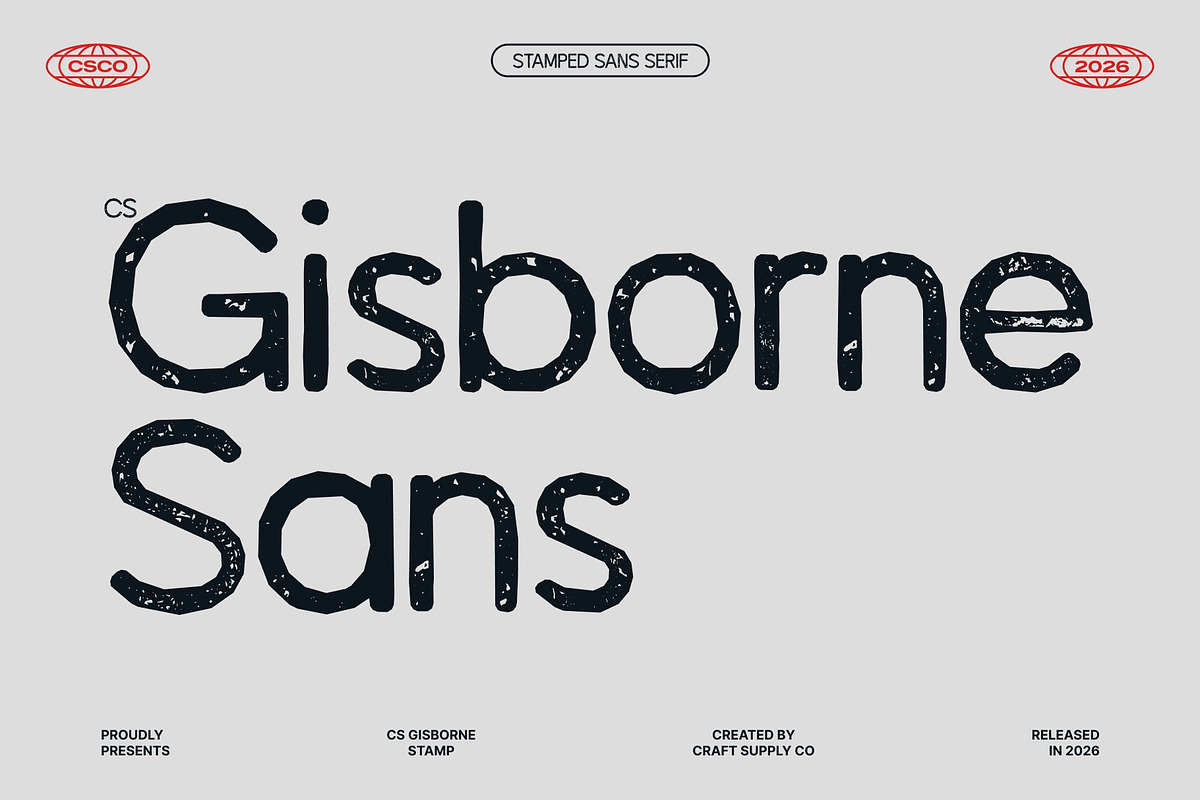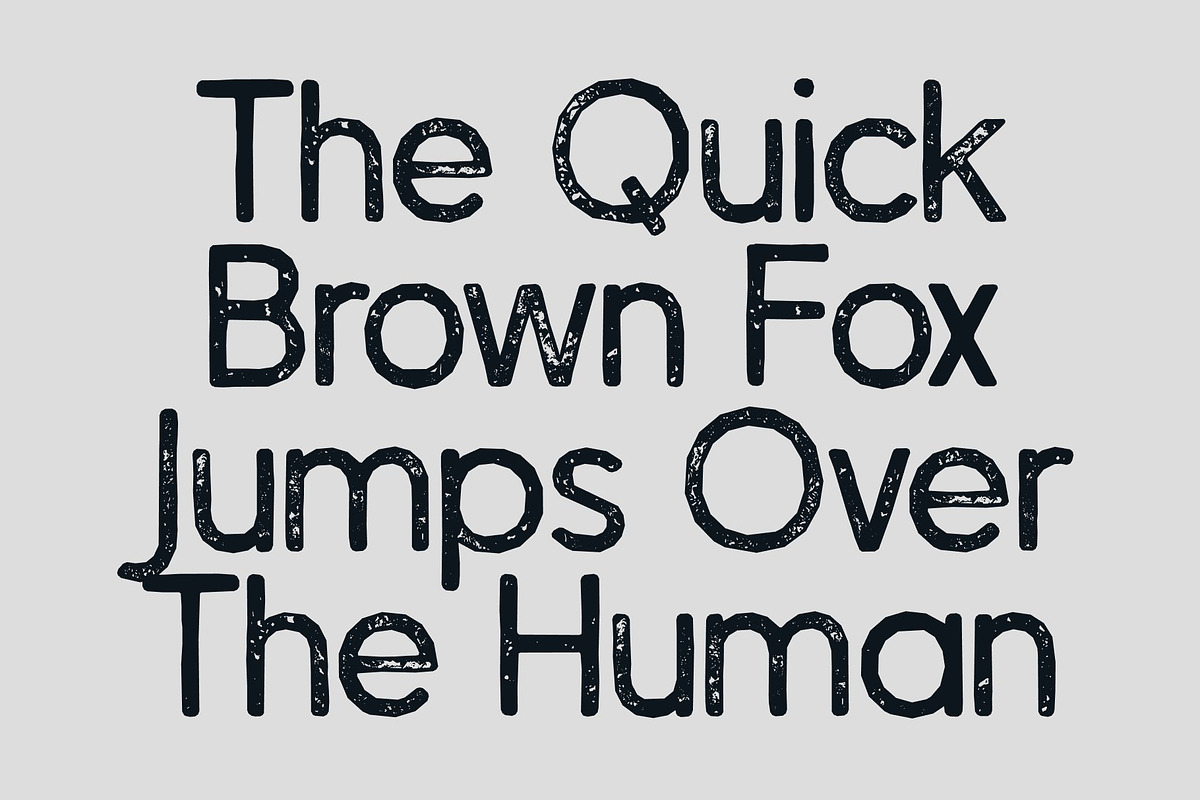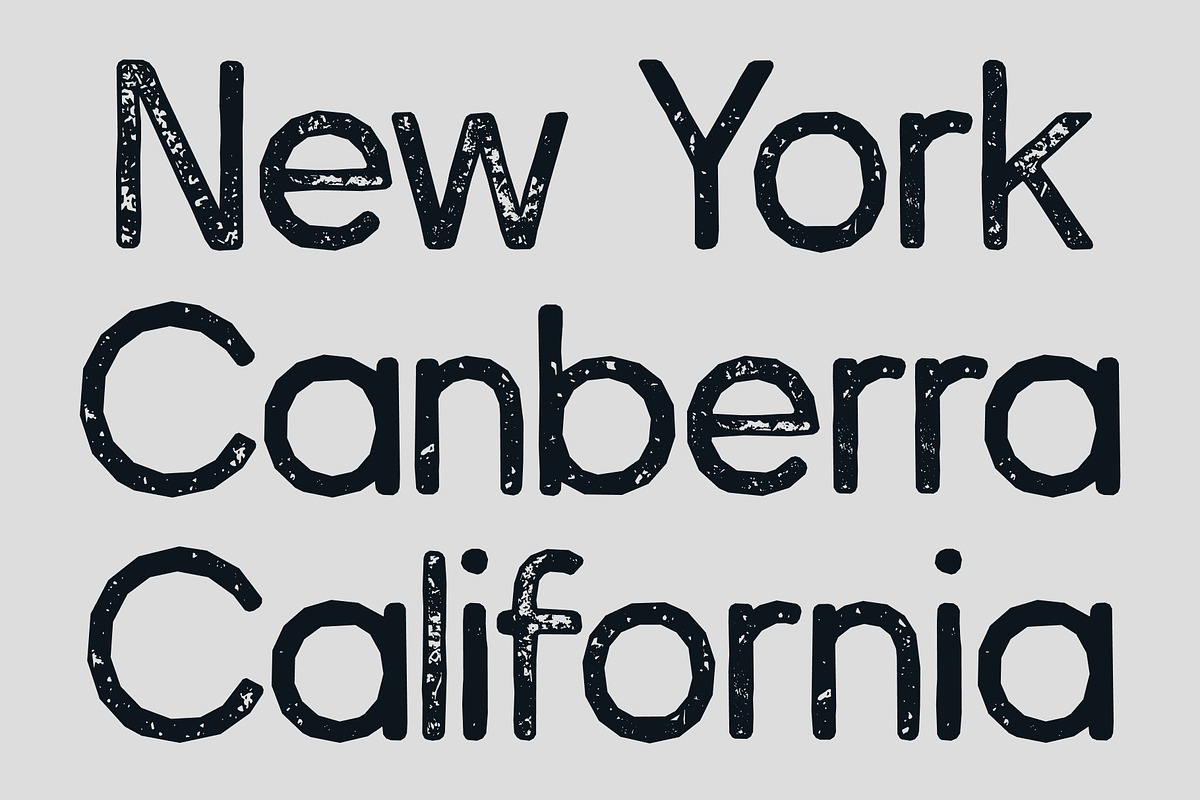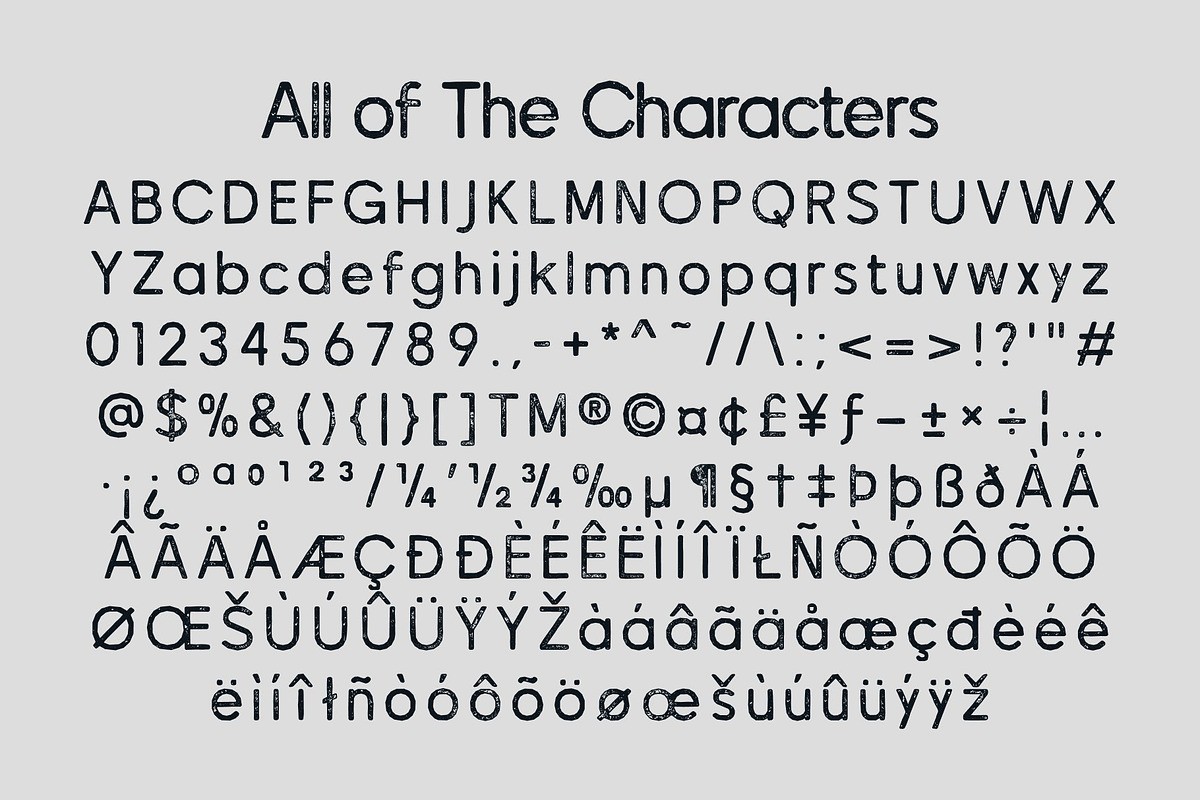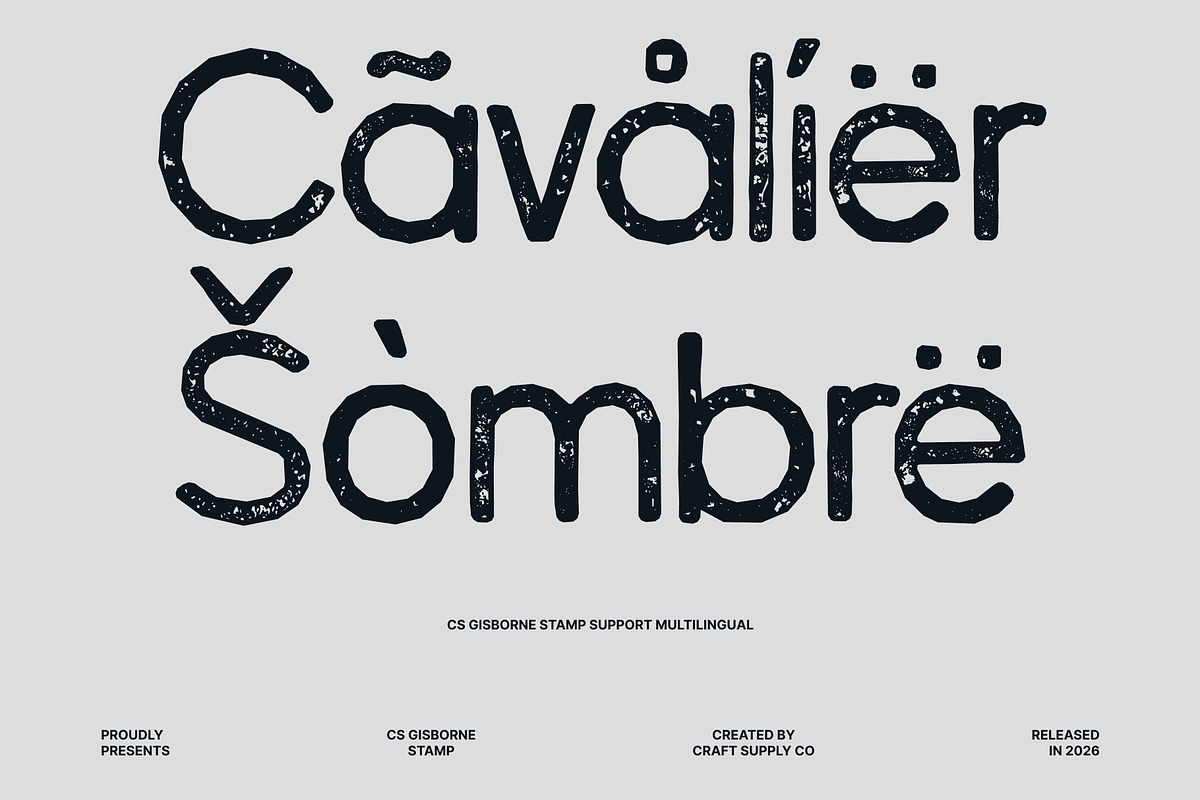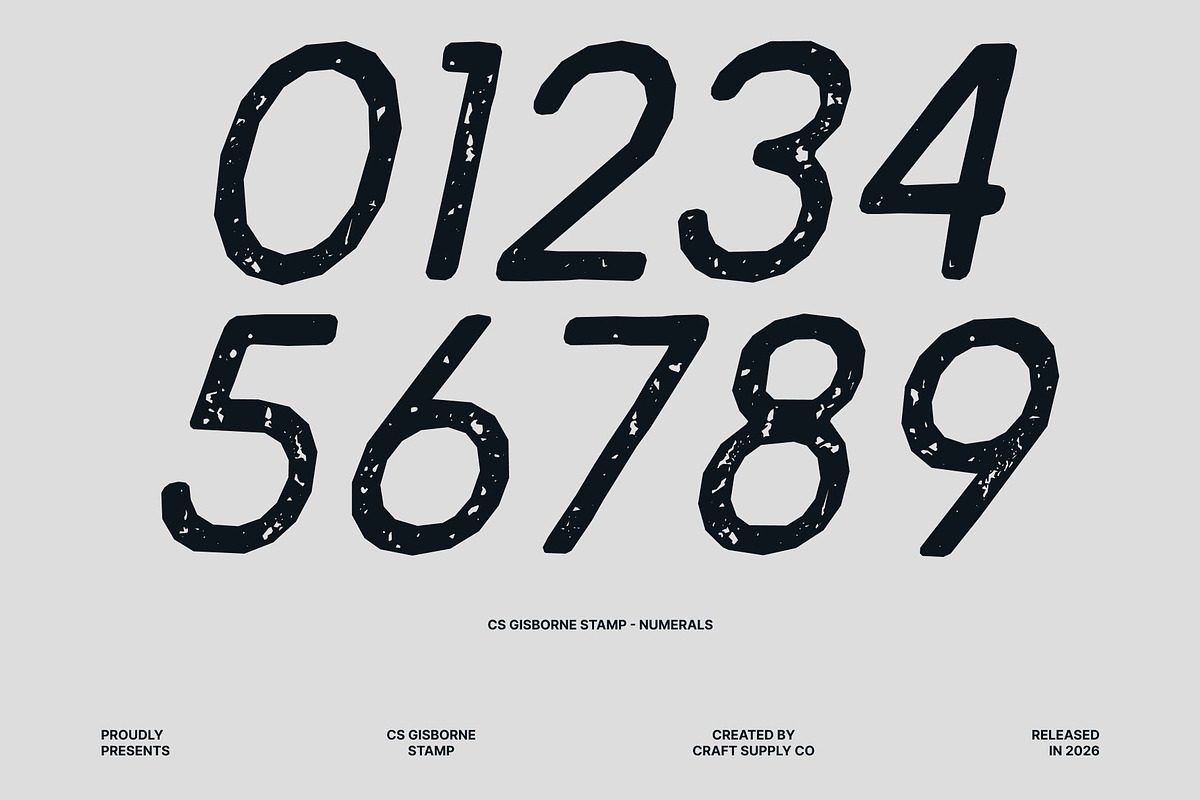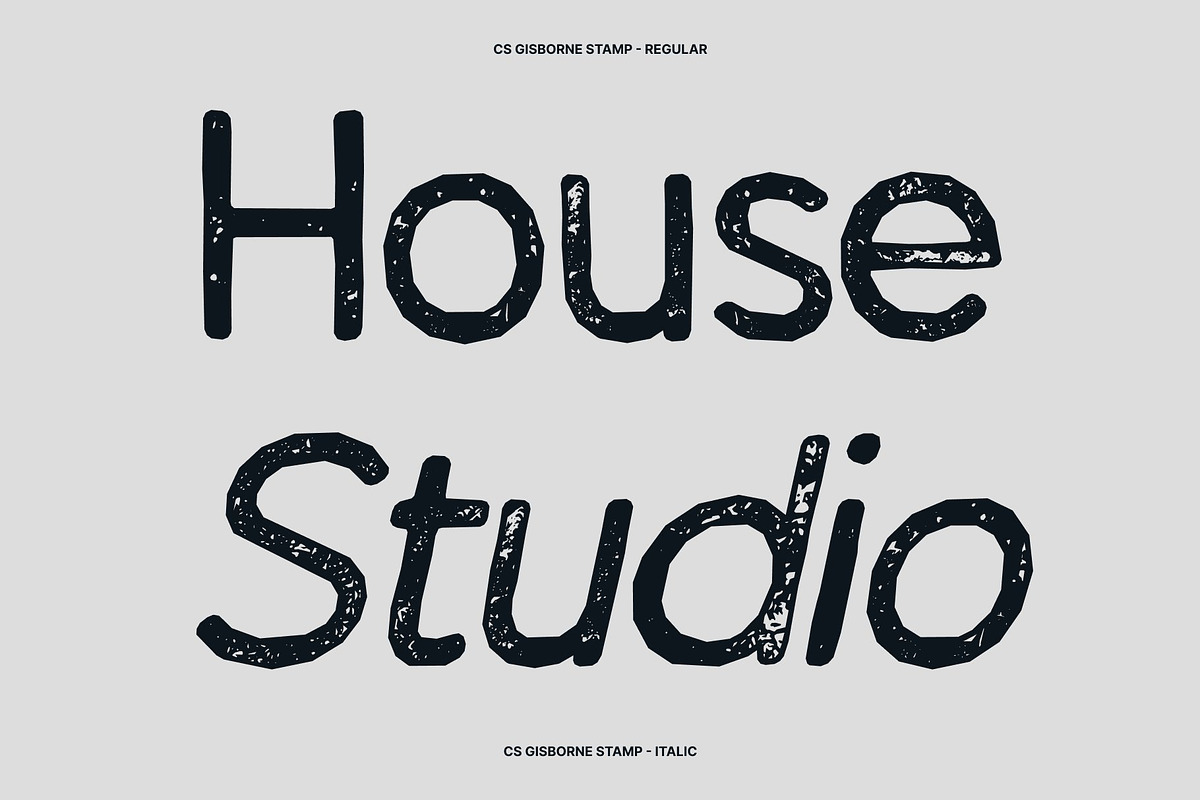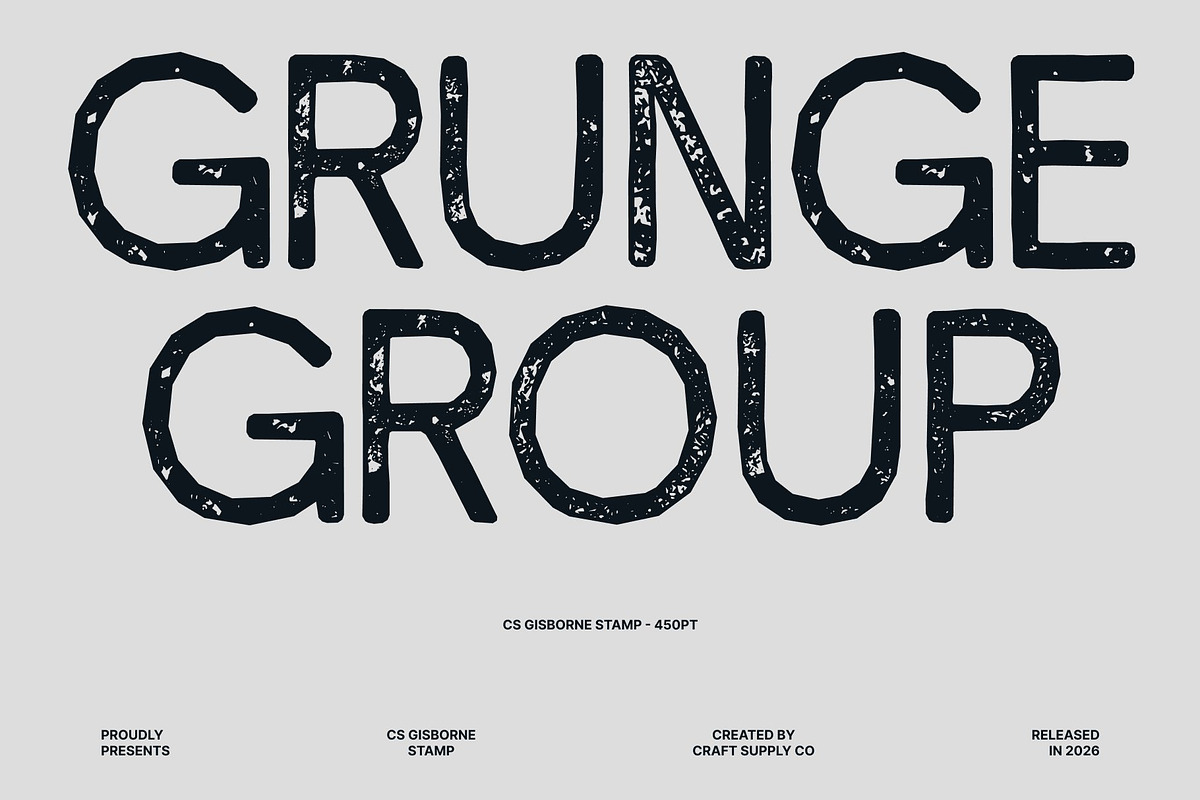
CS Gisborne Stamp
CS Gisborne Stamp – Sharp Contemporary Sans Serif with Vintage Texture
Precision Meets Modern Clarity This is a modern sans serif font defined by clean geometry and sharp detailing, now enhanced with a subtle stamp texture. This combination blends contemporary precision with a soft printed character, creating a polished yet approachable visual presence.
Structured for Strength and Versatility Its consistent proportions and carefully crafted forms communicate trust, control, and professionalism. The stamped finish introduces gentle imperfections that add warmth and authenticity, giving the font a refined personality without compromising its structured clarity.
Ideal for Modern Communication Perfect for logos, presentations, UI/UX design, editorial layouts, and corporate branding, this font supports clear and confident messaging. The geometric construction ensures modern appeal, while the vintage texture adds depth and visual interest across both digital and print media.
Timeless Professional Style This font blends modern minimalism with subtle print-inspired character, delivering a calm and authoritative tone. Ideal for corporate reports, packaging, and clean interface design, it offers a versatile and enduring typographic solution that balances elegance, clarity, and authenticity.
CS Gisborne Stamp Regular
CS Gisborne Stamp Italic